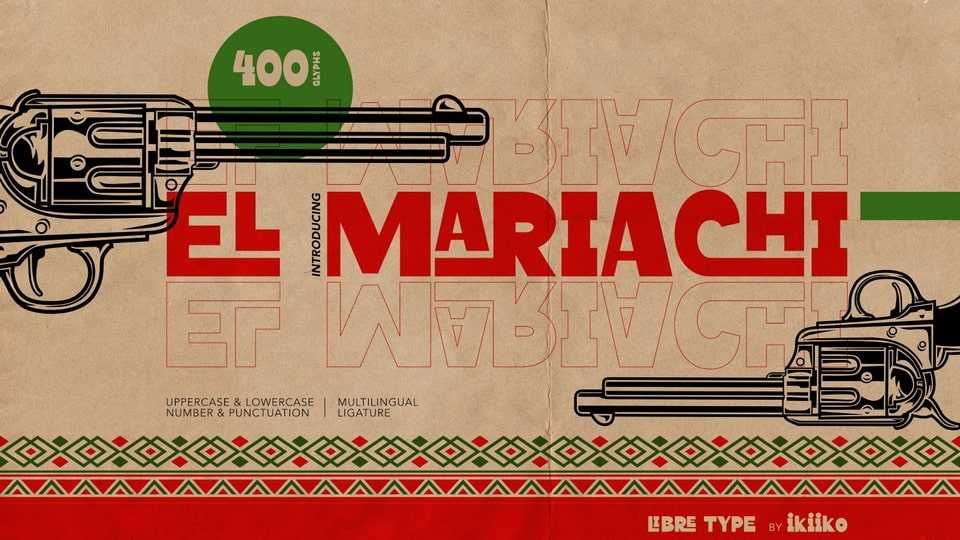
Download El Mariachi font, a unique typeface inspired by a Mexican vibe. A simple, bold sans serif typeface combined with attractive ligatures gives El Mariachi font a strong character.
Designer: ikiiko